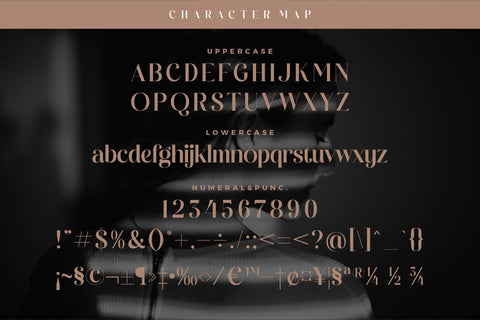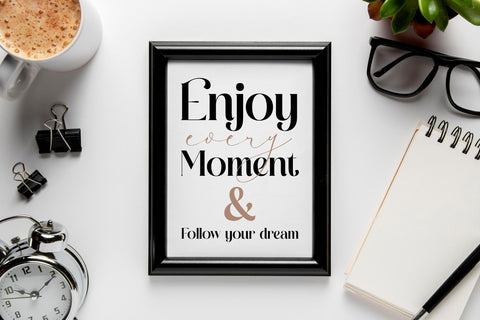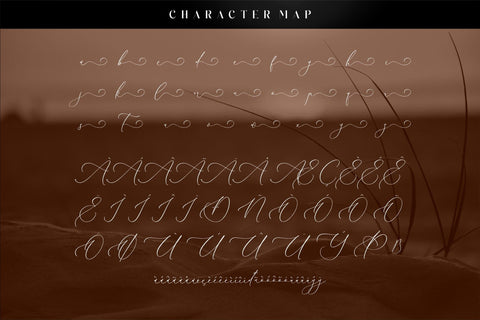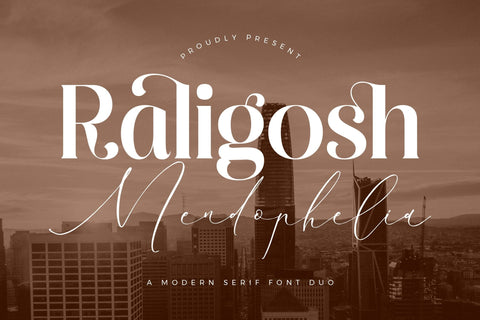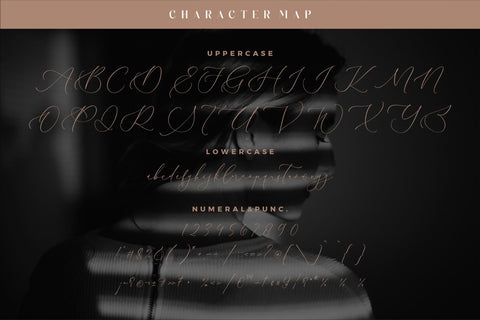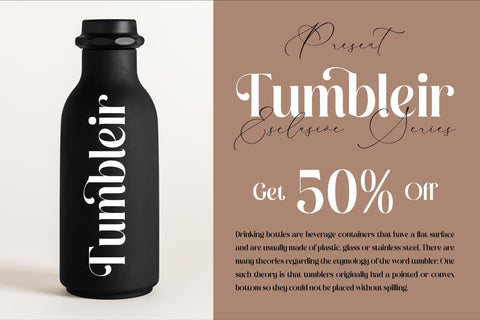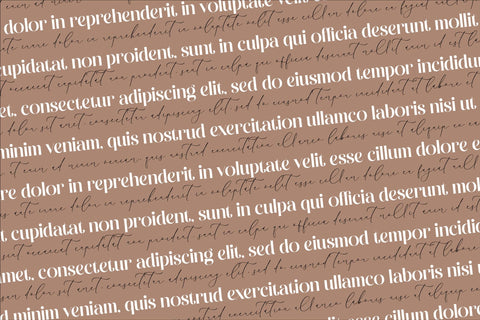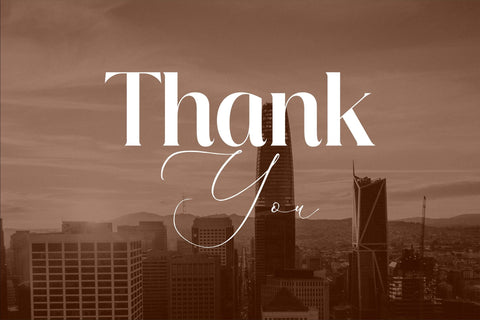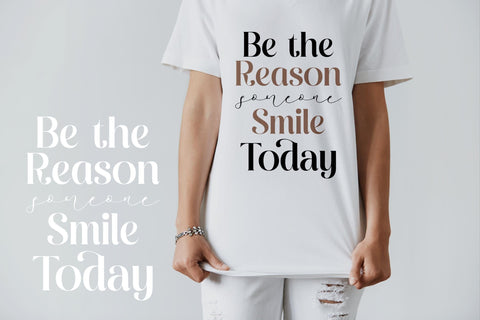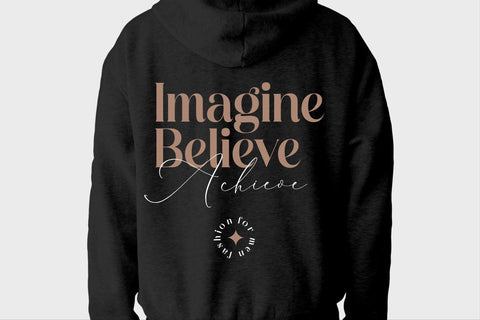
Raligosh Mendophelia Font Duo
Proudly present Raligosh Mendophelia Font Duo , created by Storytype,
A serif and script typeface that has own unique style & modern look.